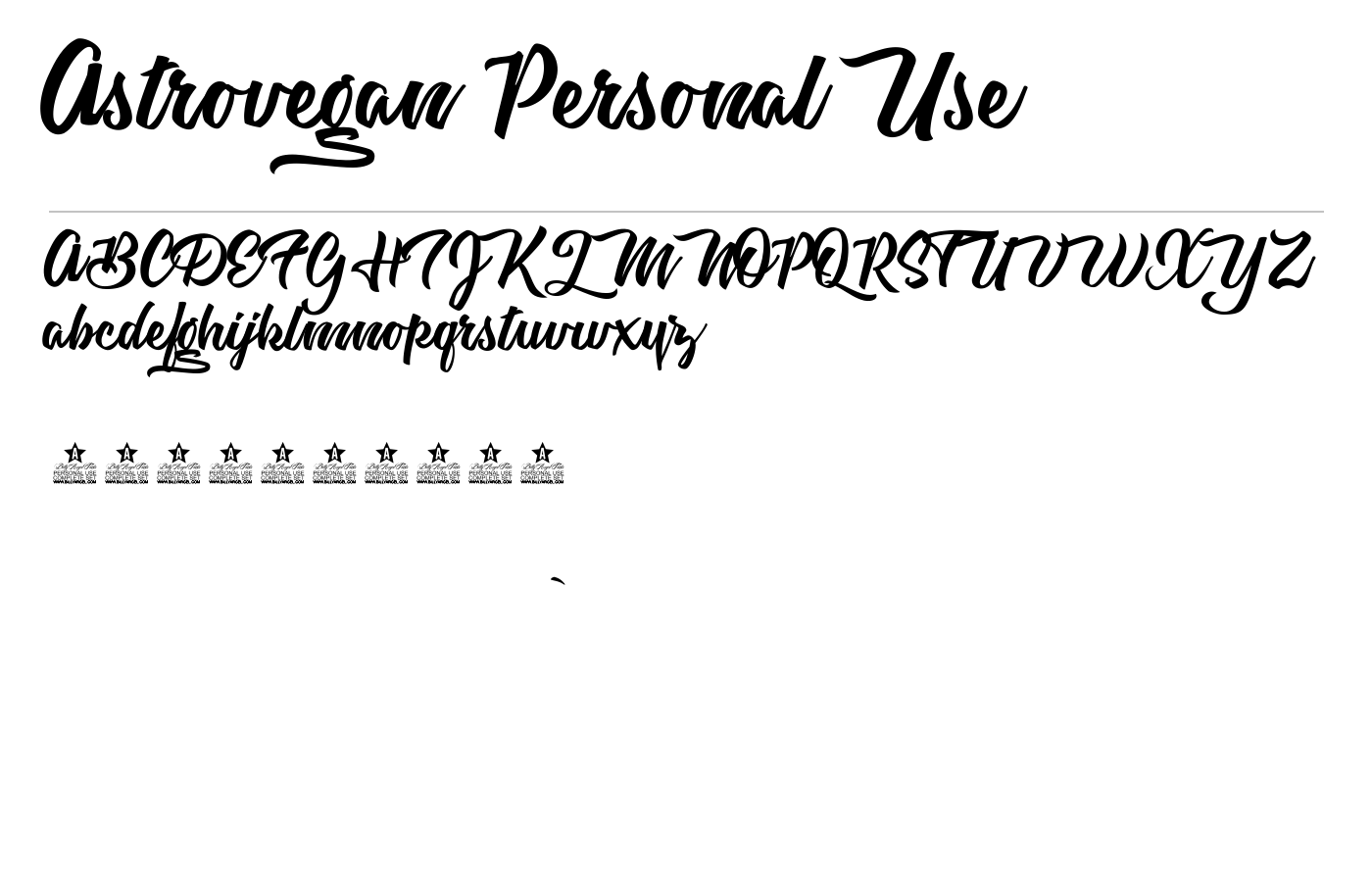
Astrovegan Personal Use is a bold and lively script font with a casual, hand-lettered feel. Its smooth, flowing strokes and slightly condensed letterforms give it an energetic personality, perfect for adding a personal, artistic touch to invitations, logos, and creative projects. This font works well in designs that aim to convey warmth, creativity, and a modern handwritten style.
Astrovegan Personal Use Font
About Astrovegan Personal Use Font